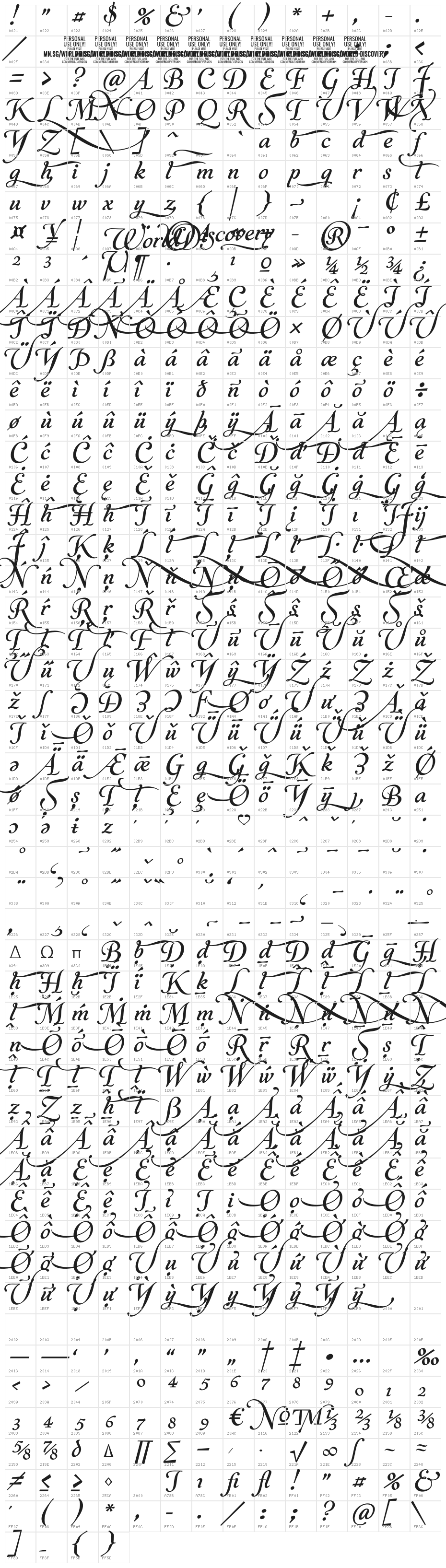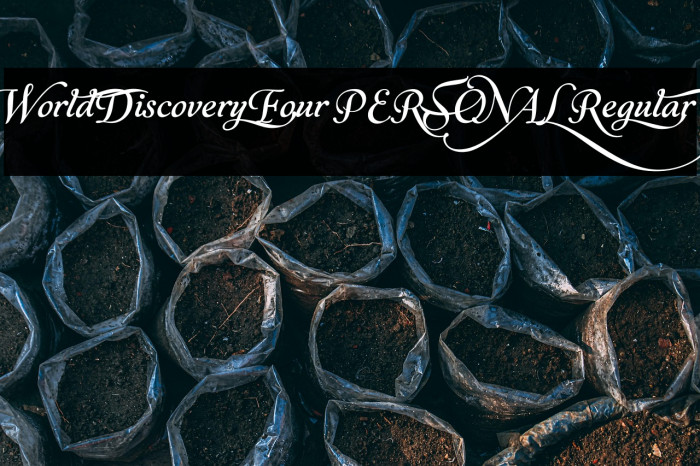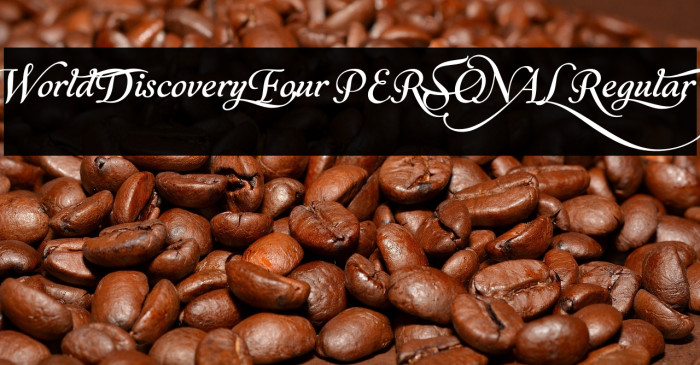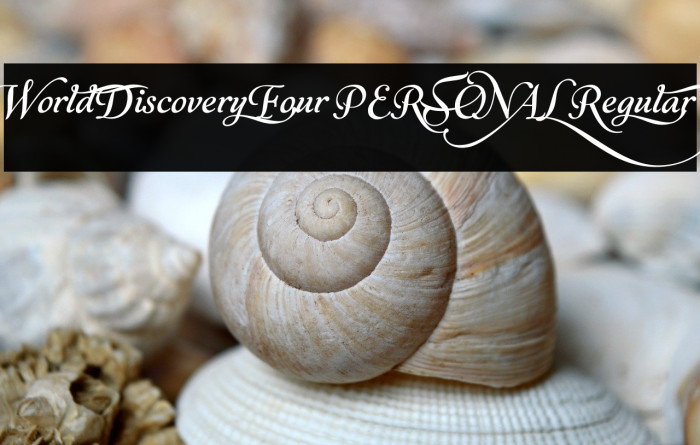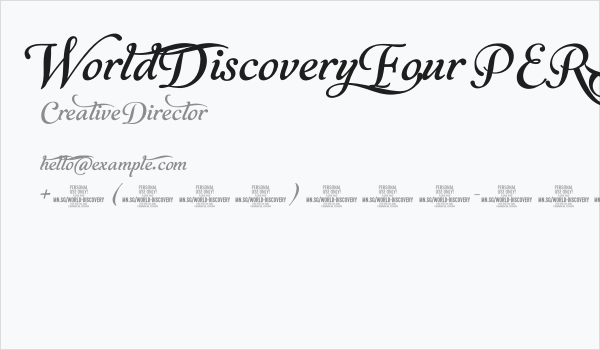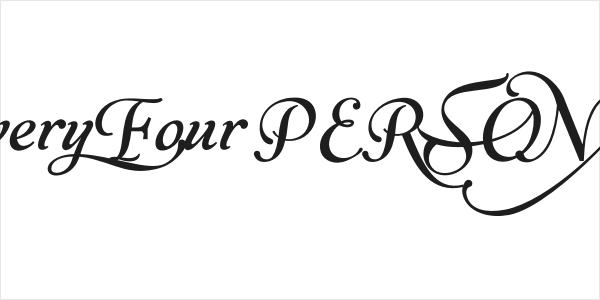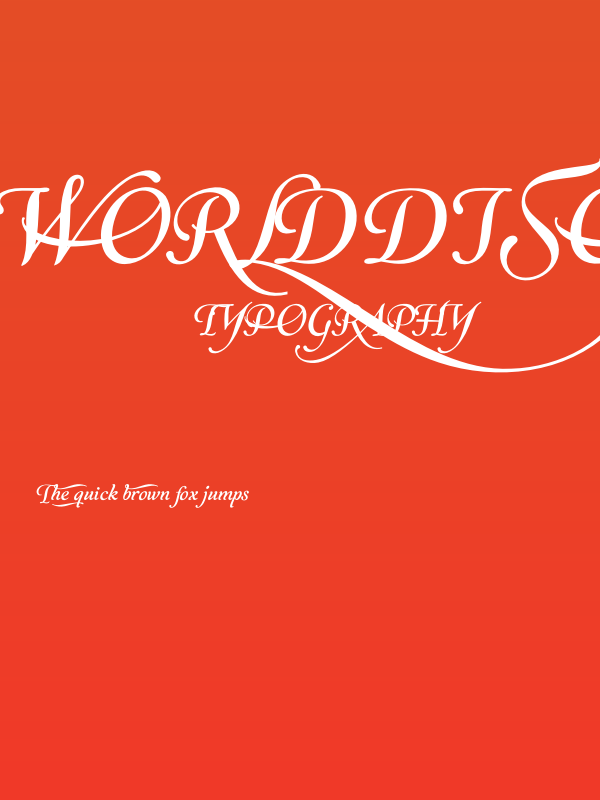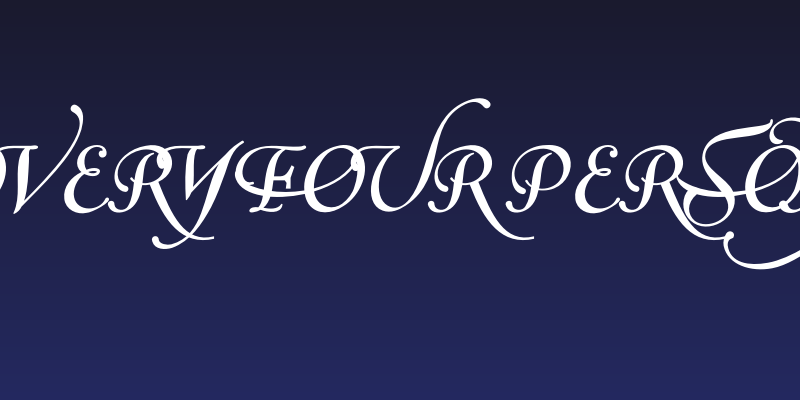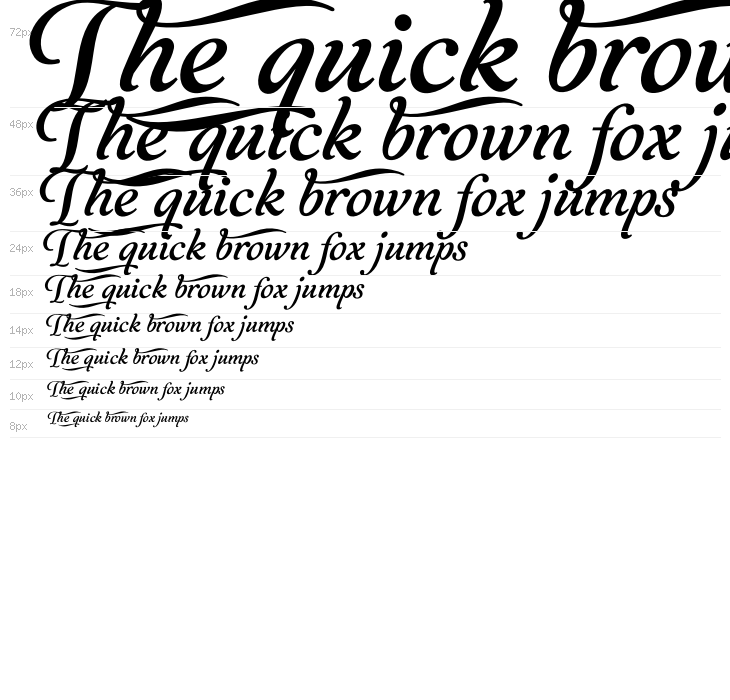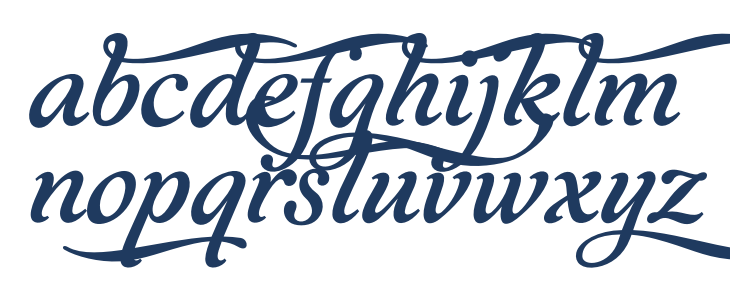
World Discovery Four PERSONAL Regular Font
World Discovery Four PERSONAL Regular Description
This font exhibits a sophisticated and elegant script style, characterized by its flowing, cursive letterforms. The uppercase letters are ornate with extended flourishes, while the lowercase letters maintain a consistent, smooth flow. The font's design is reminiscent of classic calligraphy, offering a sense of grace and refinement. The numerals and special characters are equally stylized, maintaining the overall aesthetic. This font is ideal for projects that require a touch of elegance and sophistication, such as wedding invitations, formal event programs, or luxury branding.
| Proposed Projects | Wedding invitations, formal event programs, luxury branding, elegant signage. |